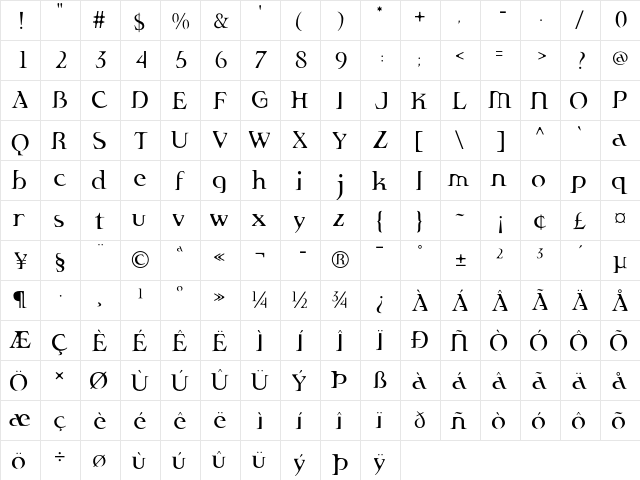
Fandango Regular
Design Context for Fandango Typeface
Fandango is a composed and adaptable typeface that performs quietly and consistently across a wide range of design contexts.